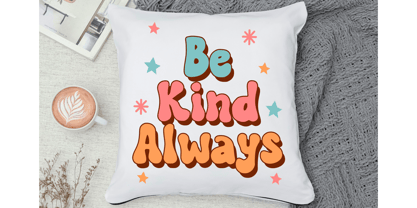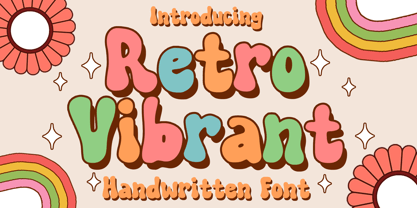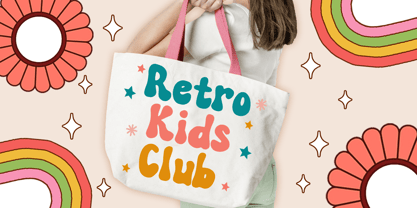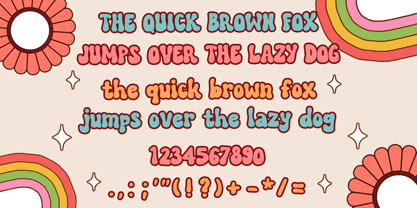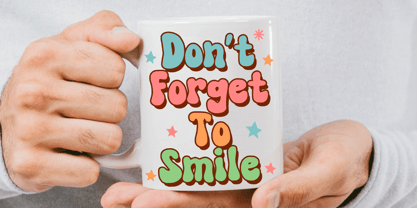
Retro Vibrant
by Mvmet
The Retro Vibrant Font Family was designed by Gabriel Valentinus and published by Mvmet. Retro Vibrant contains 1 styles. More about this family
Introducing Retro Vibrant, a dynamic and whimsically inspired vintage typeface that captures the essence of nostalgia. With its genteel charm, Retro Vibrant is the perfect choice to bring joy to a variety of projects, including t-shirt prints, children's stories, greeting cards, stickers, banners, and more. This typeface adds a touch of carefree sophistication, making it ideal for any design that seeks to evoke happiness and lightheartedness. Immerse yourself in the versatility of Retro Vibrant and use it to create artistic masterpieces that radiate joy and cheer. Experience how Retro Vibrant can elevate your creativity, infusing every project with a timeless sense of enchantment.